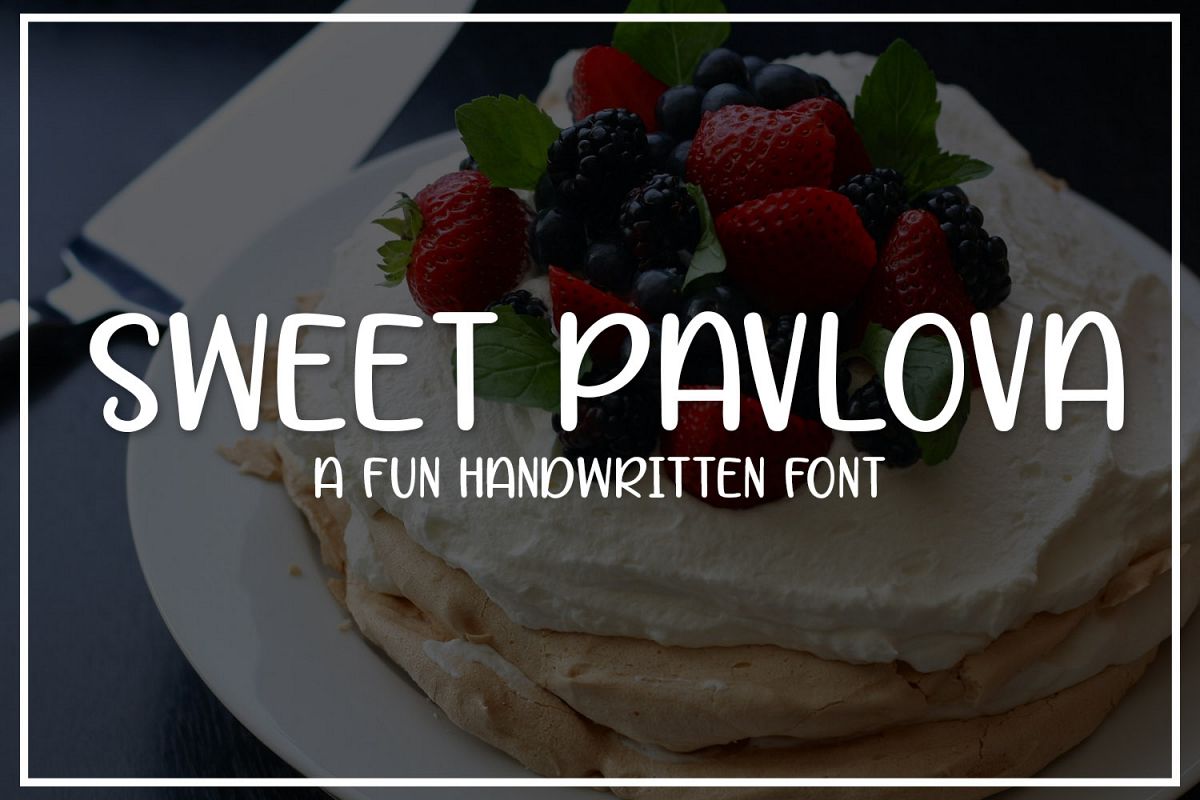
Sweet Pavlova is a fun handwritten font.
Smooth and stylish, Sweet Pavlova is perfect for crafting, t-shirts, decals, cards, invitations, and so much more!